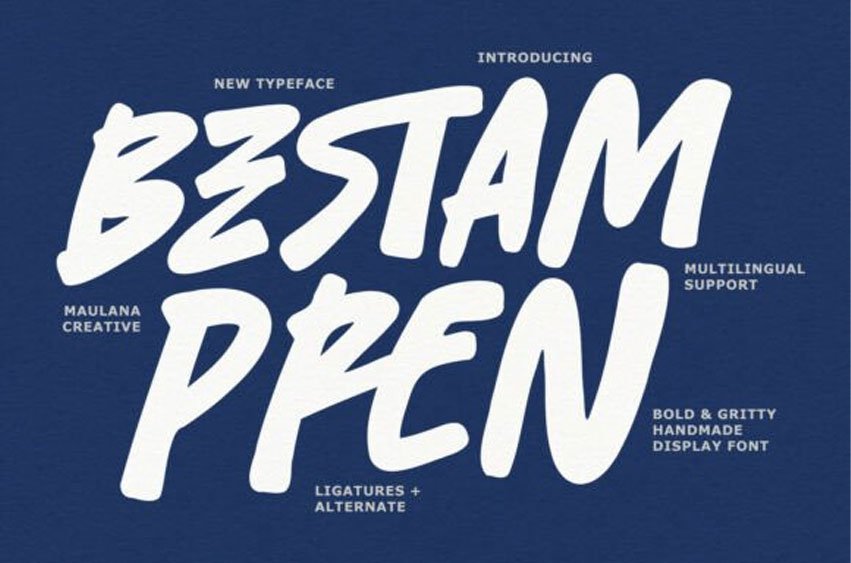
Bestam Pren Font
Bestam Pren Font Forge a path of raw energy with Bestam Pren. This bold and gritty handmade display font captures the spontaneous power of a wide-nib marker. Featuring rough, textured edges and a high-impact verticality, it includes ligatures and alternates to ensure your designs look completely custom and unrefined. It commands attention through its aggressive rhythm and artisanal soul.
Best Used For: Streetwear logos, extreme sports branding, music festival posters, and high-impact social media headers.